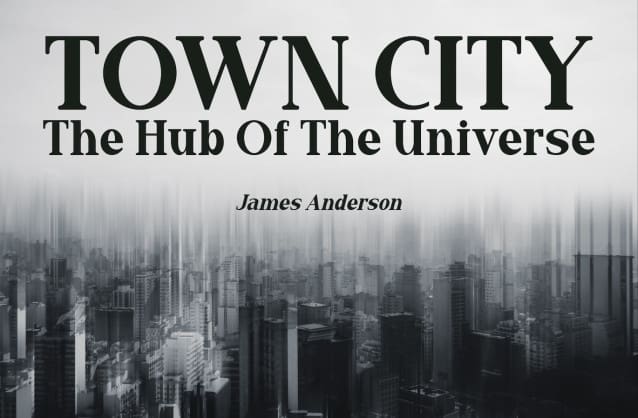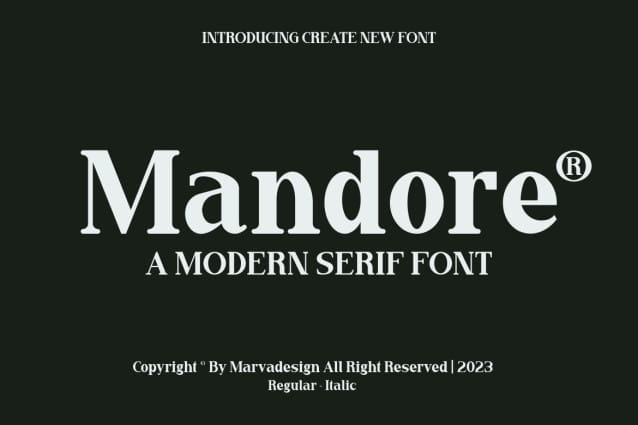
Mandore Font
Mandore Font – Modern Font is a bold and authentic display font. The font is suitable for any branding project like logo, Template Design, Product and many more. outstanding in a wide range of contexts.